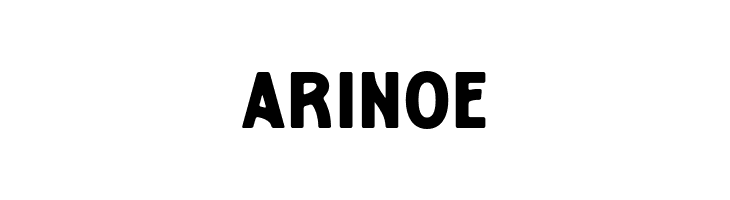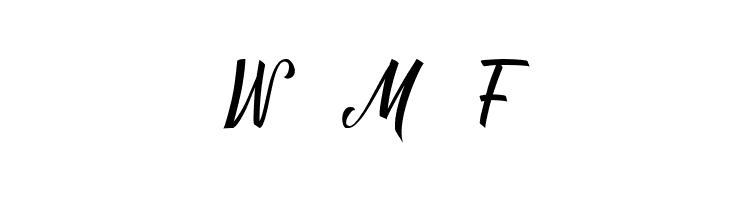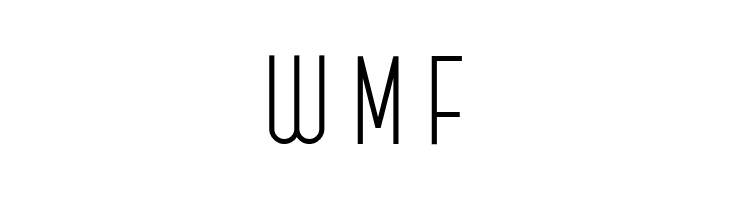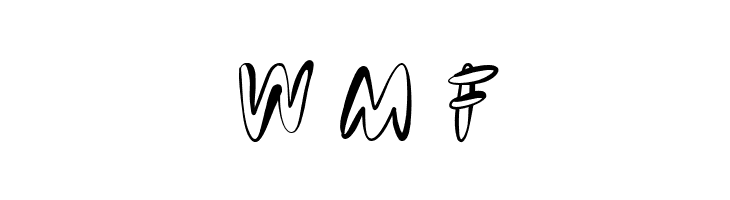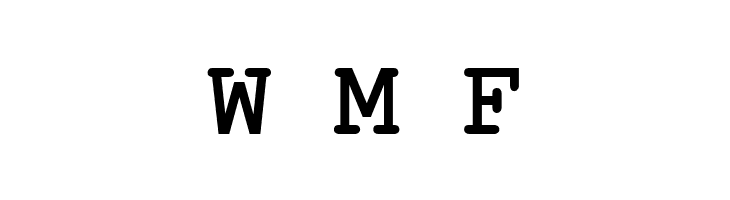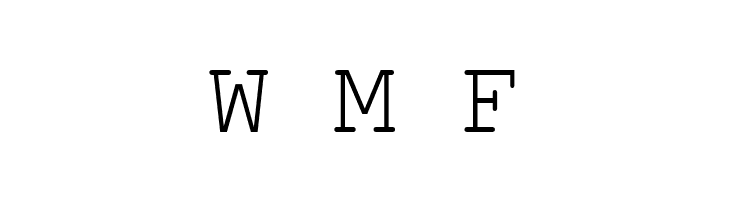
A modern, elegant script font with flowing, cursive characters.
A modern, sleek font with tall, narrow characters and a minimalist design.
A bold, rounded font with a playful and approachable style.
A modern, monospaced font with a technical and geometric design.
A playful, hand-drawn outline font with bold and thin strokes for a whimsical look.